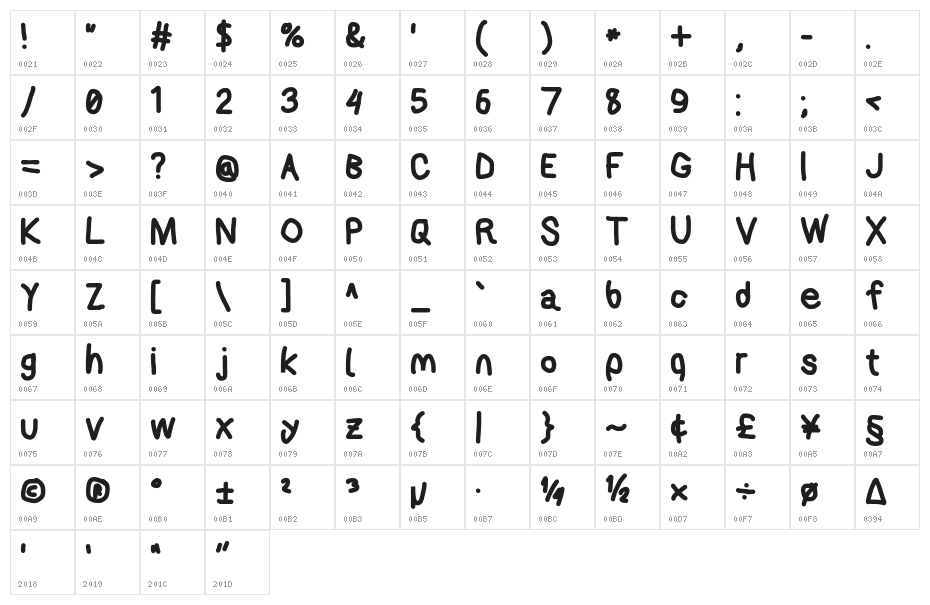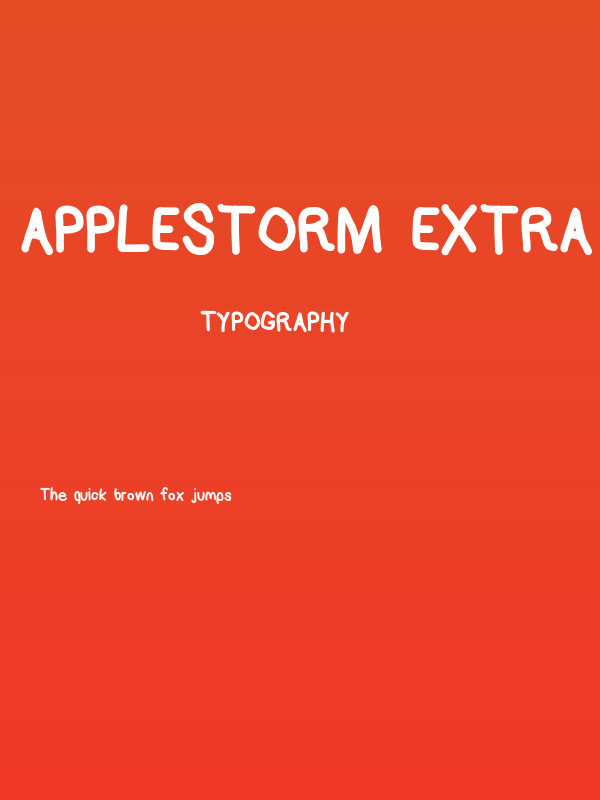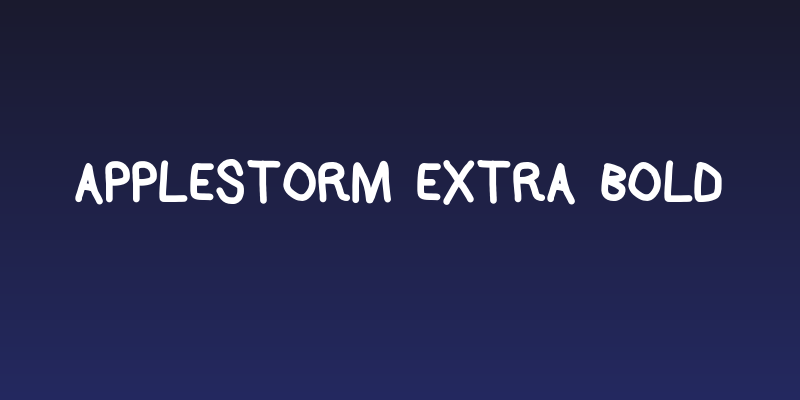
AppleStorm Extra Bold Font
AppleStorm Extra Bold Description
This font features a playful and bold handwritten style, characterized by its thick strokes and rounded edges. The letters are slightly irregular, giving it a casual and friendly appearance. The uppercase and lowercase letters maintain a consistent weight, providing a cohesive look throughout the alphabet. Numbers and special characters follow the same design principles, ensuring uniformity. The font's boldness makes it highly legible and suitable for attention-grabbing designs. Its informal style is perfect for projects that require a touch of personality and creativity.